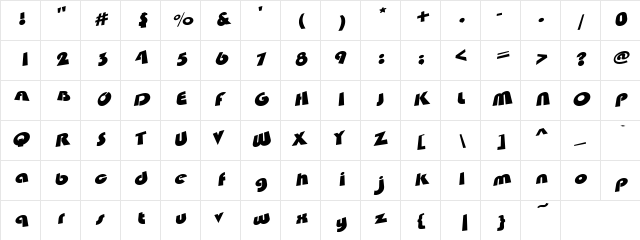
Junk Box Regular
Design Context for Junk Box Typeface
Junk Box is a composed and adaptable typeface that performs quietly and consistently across a wide range of design contexts.